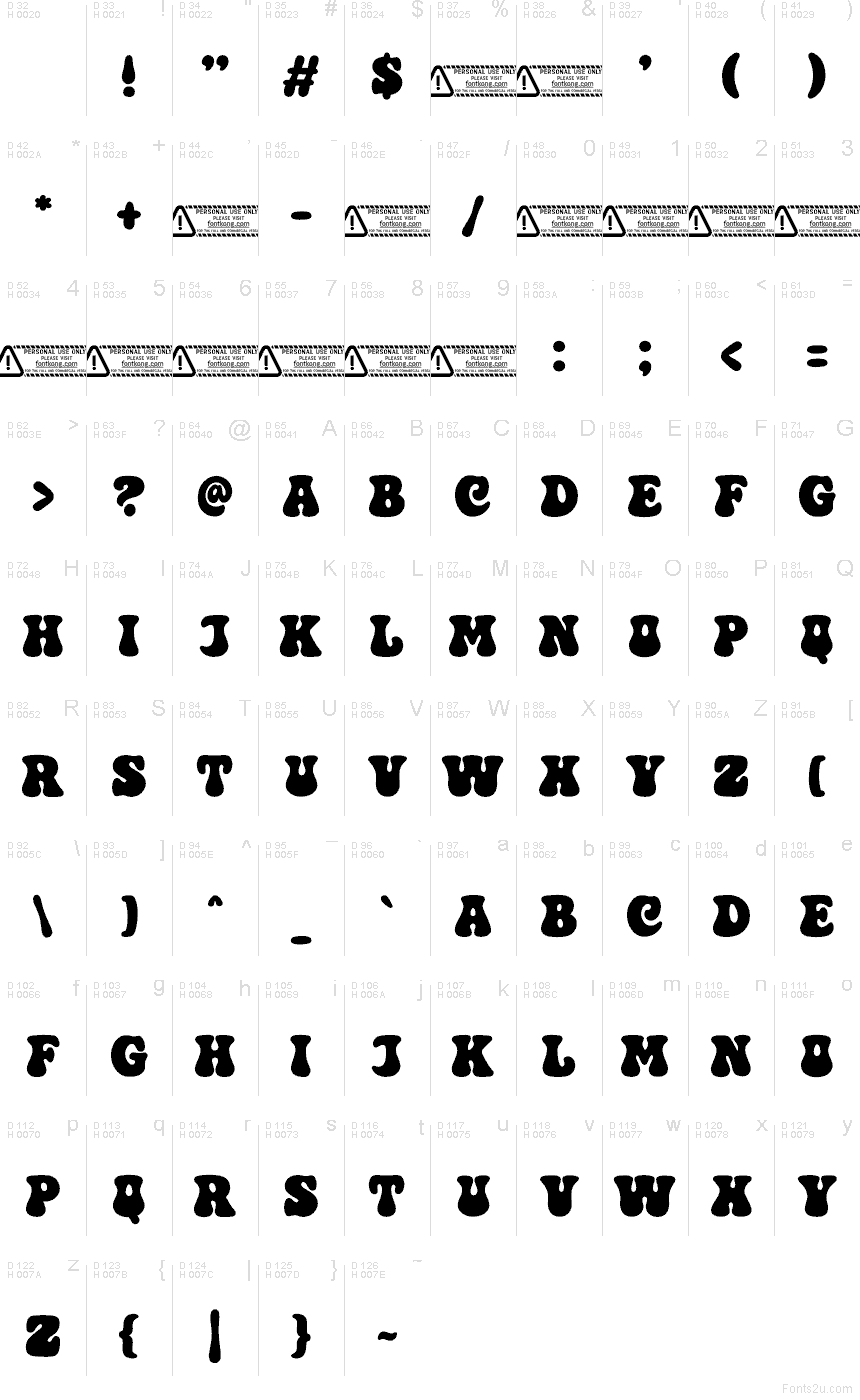
Lucky Bowl font by Kong Font is a free groovy typeface with puffed-up, lava-lamp curves and soft cut-in counters that feel poured rather than drawn. The letters sit wide and weighty, with playful wobble and chunky rhythm that reads like a 70s poster dipped in fresh ink. It’s bold without being sharp—more squishy than strict—so your headlines land with instant warmth and attitude.
Using Lucky Bowl, you’ll get big personality on music flyers, retro brand marks, café menus, sticker packs, YouTube thumbnails, festival posters, and social ads that need a wink. This free font shines when you give it room: size it up and keep tracking slightly open so the shapes can breathe. Pair it with a clean geometric sans for supporting text to keep the groove punchy and readable.